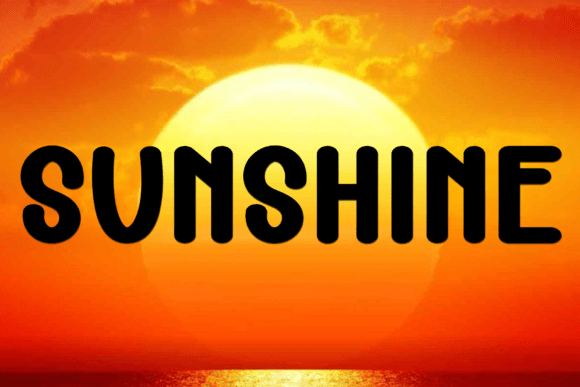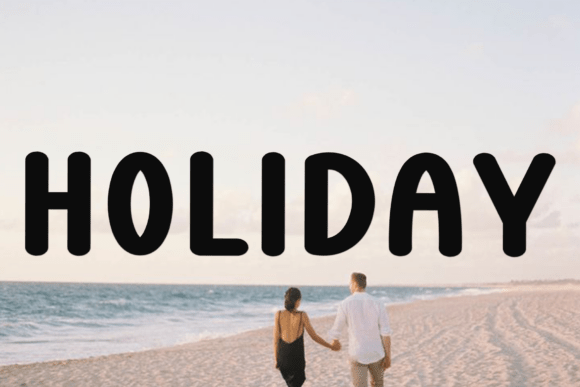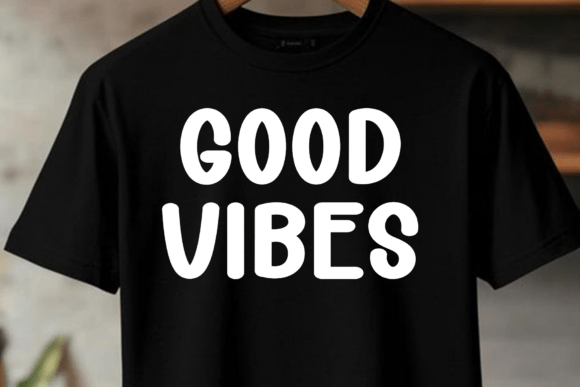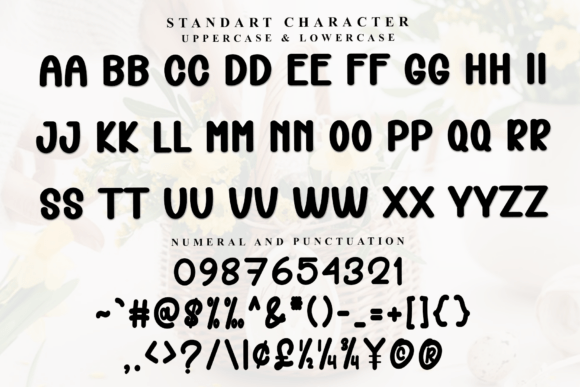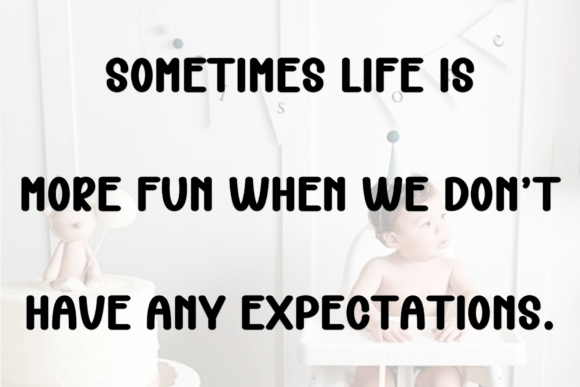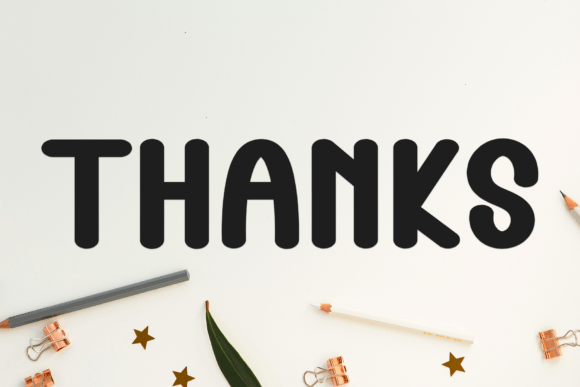
Discover the Magic of Angel Beach Font
Have you ever sat down with a blank canvas, a blank page, or a blank screen, feeling the urge to create something truly special? The blank slate can be both exhilarating and intimidating, but with the right tools, it can become a canvas for endless possibilities. For designers, finding the perfect font can be the key to unlocking their creativity and bringing their vision to life.
Enter the Angel Beach Font, a beautiful and eye-catching typeface designed to add a touch of uniqueness to any project. With its soft, natural strokes, this font is perfect for designers looking to add a personal touch to their designs, crafts, and creative works. Whether you’re working on a logo, a brochure, or a digital product, the Angel Beach Font is a valuable addition to your design toolkit.
Angel Beach Font Key Features
- Font Family: Angel Beach Font is a unique, hand-drawn sans-serif font designed to evoke a sense of beachy, carefree vibes.
- Unique Characteristics: Features a distinctive, handwritten feel with subtle imperfections, giving it a personal and organic touch.
- Character Set: Includes a comprehensive set of characters, including uppercase and lowercase letters, numbers, and punctuation marks, making it suitable for a wide range of applications.
Designer Review: Angel Beach Font
Angel Beach Font is a beautiful, modern sans-serif font that’s perfect for creating a beachy, laid-back vibe in your designs. ✨ The font’s clean lines, rounded edges, and subtle curves give it a friendly, approachable feel that’s sure to put your audience at ease.
- ✨ The font’s legibility is excellent, making it perfect for body text or headings.
- ✨ The font’s playful, carefree feel makes it ideal for designs related to travel, relaxation, or leisure activities.
- ✨ The font’s high x-height makes it easy to read in small sizes, making it perfect for digital designs.
However, there are some limitations to keep in mind:
- ⚠️ The font may not be suitable for formal or professional designs, as its playful feel may come across as unprofessional.
- ⚠️ The font may not be as effective in larger sizes, as its subtle curves and rounded edges may get lost.
- ⚠️ The font may not be as versatile as some other sans-serif fonts, as its beachy vibe may limit its use in certain design contexts.
Overall, Angel Beach Font is a great choice for designers who want to create a fun, relaxed vibe in their designs. With its excellent legibility, playful feel, and high x-height, it’s perfect for travel, leisure, or relaxation-related designs. However, it may not be the best choice for formal or professional designs.
Tips for Getting the Most Out of Angel Beach Font
Use the Angel Beach font for beach-themed designs, such as invitations, posters, and social media graphics. You can also use it for wedding invitations, baby shower invitations, and other summer-themed events.
To make the most of the Angel Beach font, pair it with images of beaches, palm trees, and other summer elements. Experiment with different font sizes and colors to create a visually appealing design.
The Angel Beach font is ideal for designs that require a fun, playful, and beachy vibe. Some common use cases include:
Beach-themed invitations and announcements
Summer-themed social media graphics and posters
Wedding and baby shower invitations
Beach-inspired branding and logos